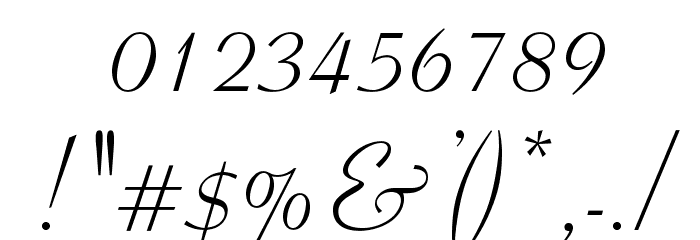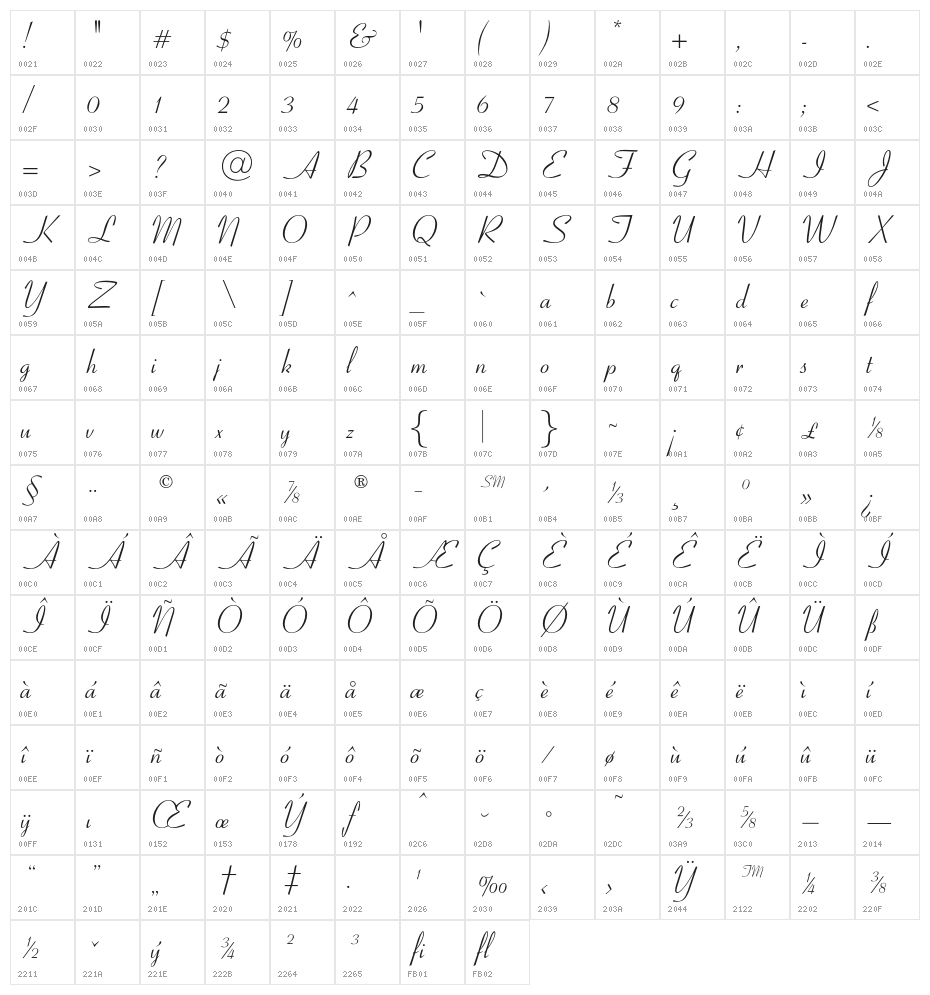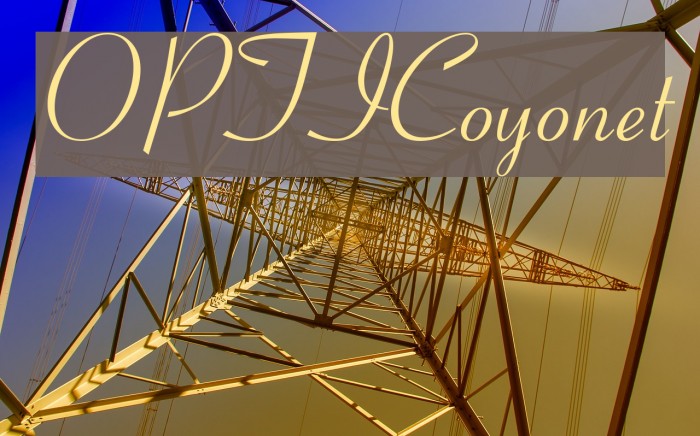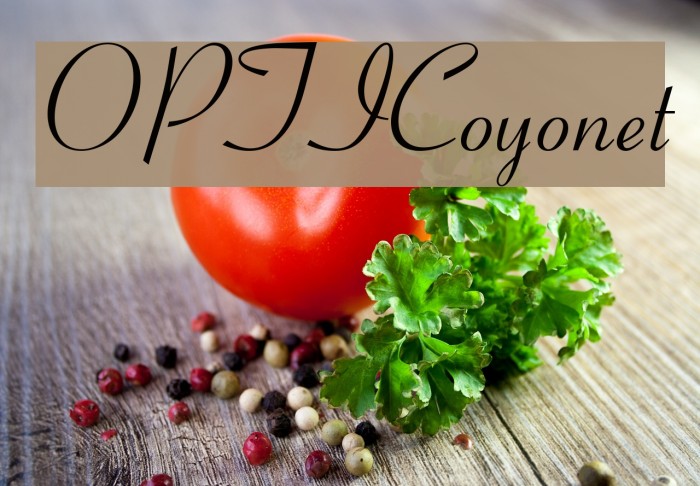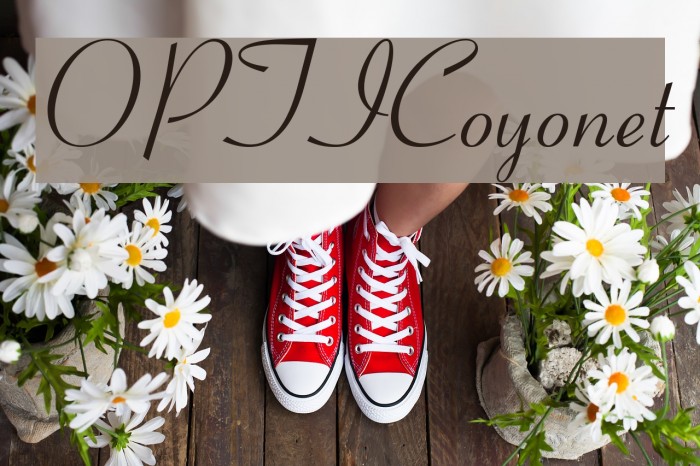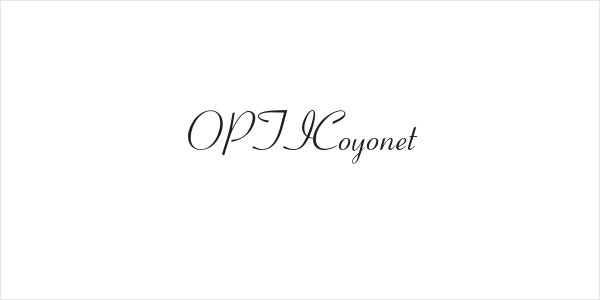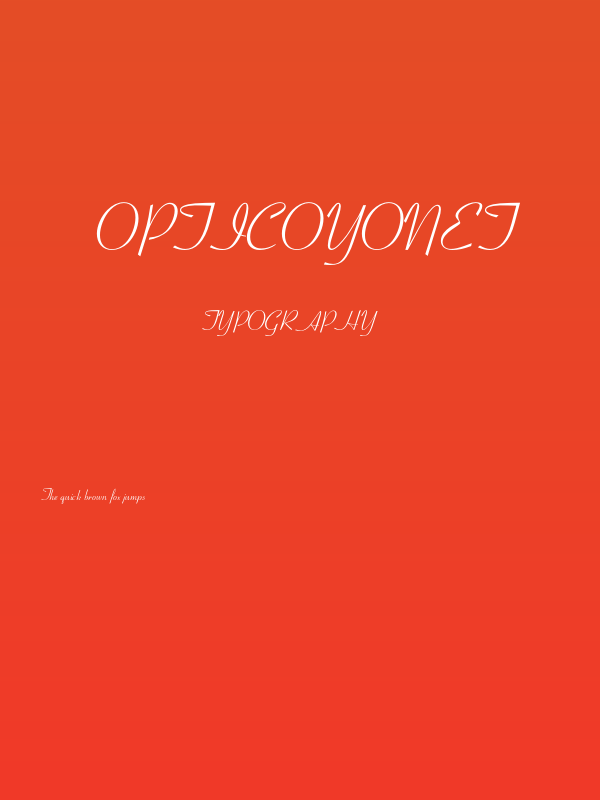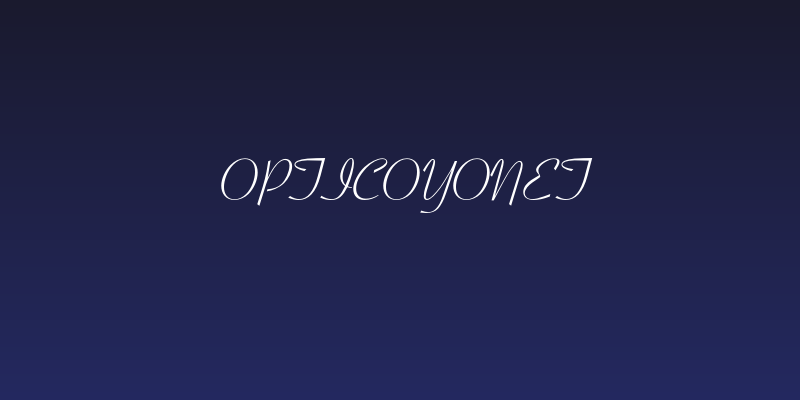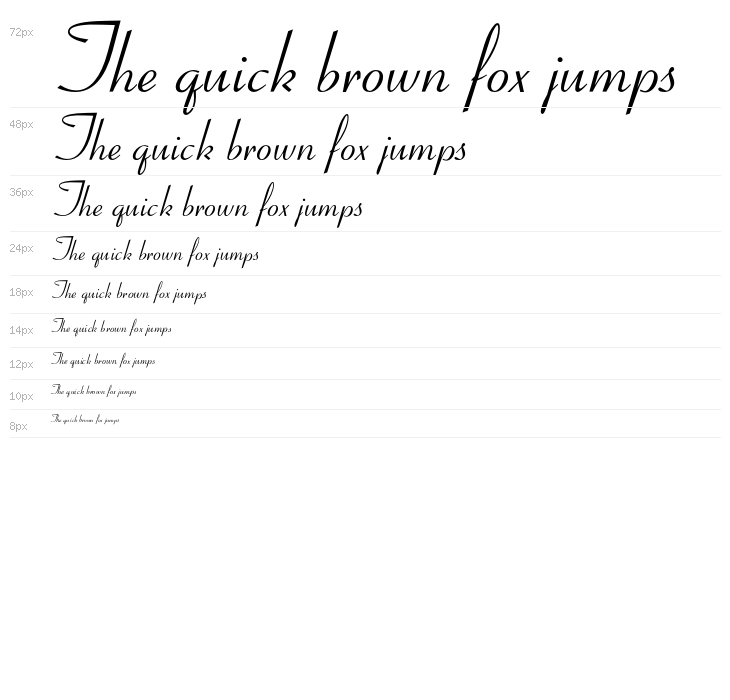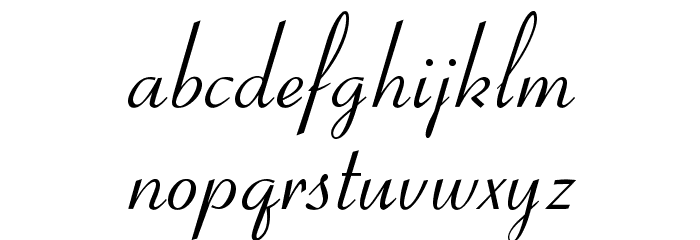
OPTICoyonet Font
OPTICoyonet Description
This elegant script font features fluid, cursive strokes that convey a sense of sophistication and grace. The uppercase letters are characterized by their sweeping, elongated forms, while the lowercase letters maintain a consistent flow with subtle variations in stroke width. The numerals are designed with a similar flair, ensuring a cohesive appearance across all characters. Special characters are thoughtfully integrated, maintaining the font's overall aesthetic. The font's style is reminiscent of traditional calligraphy, making it suitable for formal and decorative applications.
| Overall Style | Classic |
| Use Case | Logos, Invitations, Decorative text |
| Proposed Projects | Ideal for wedding invitations, elegant branding, greeting cards, and decorative signage. |